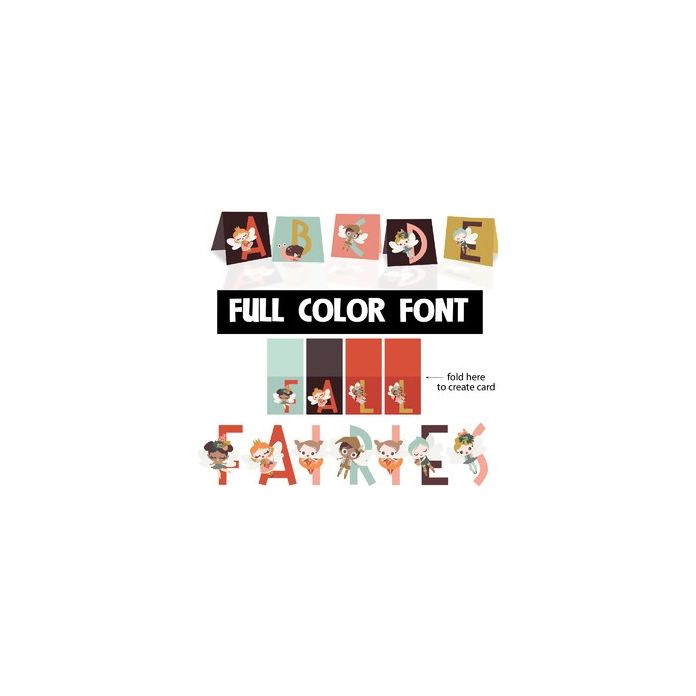
This full-color font has an uppercase of "cards". Simple cut and fold in half for a great monogram card w/ adorable fall fairies. The lowercase is without cards. There is an alt case of plain lettering you can access through your system's glyph map.